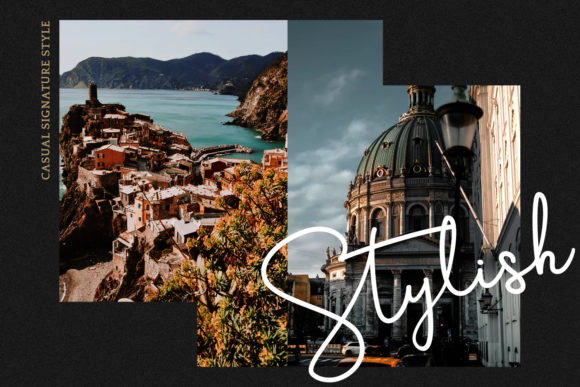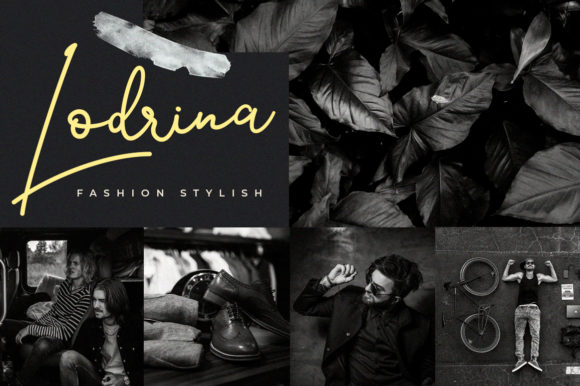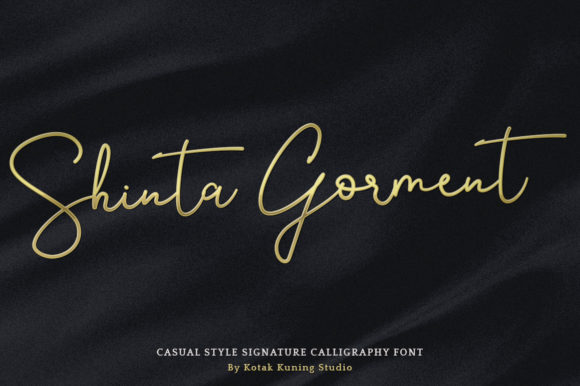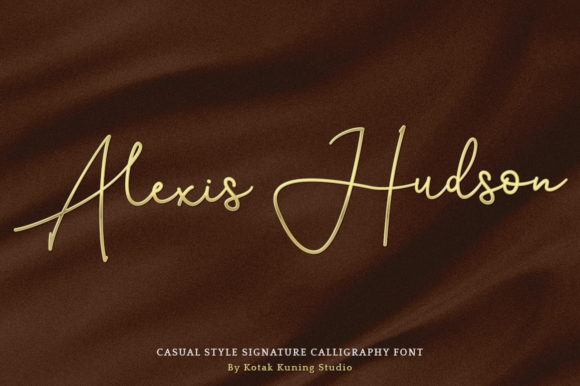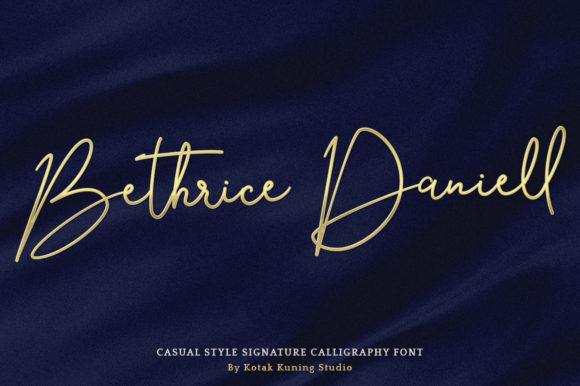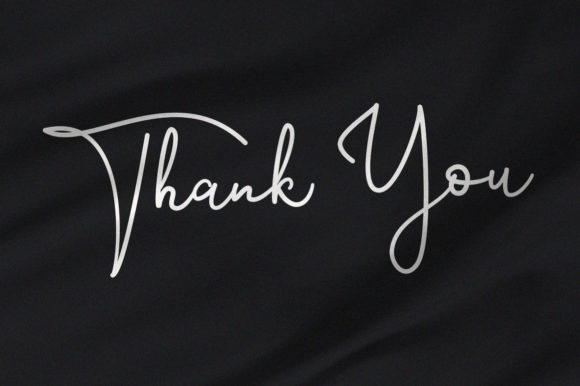
Southern Lourent Font
About Southern Lourent Font
Southern Lourent is a fun and bold handwritten font with a unique feel. It will put its southern charm on any design project!